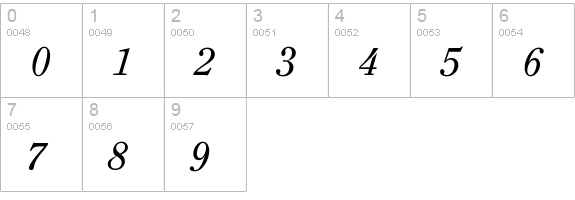
Clearface is a modern and versatile font that combines elegance with readability. Its clean lines and classic proportions make it perfect for a wide range of design projects, from branding to editorial design. The timeless appeal of Clearface makes it a popular choice among designers looking for a font that is both sophisticated and approachable. What sets Clearface apart is not only its aesthetic appeal but also the fact that it is available for free download at FontsMarket.com. This means that you can easily access this high-quality font without any cost, making it a valuable addition to your font library. Whether you are working on a professional project or a personal creative endeavor, Clearface is sure to elevate your design with its timeless charm and versatility. Download Clearface today and see the difference it can make in your next project.